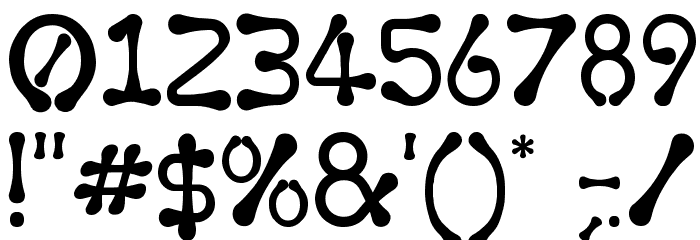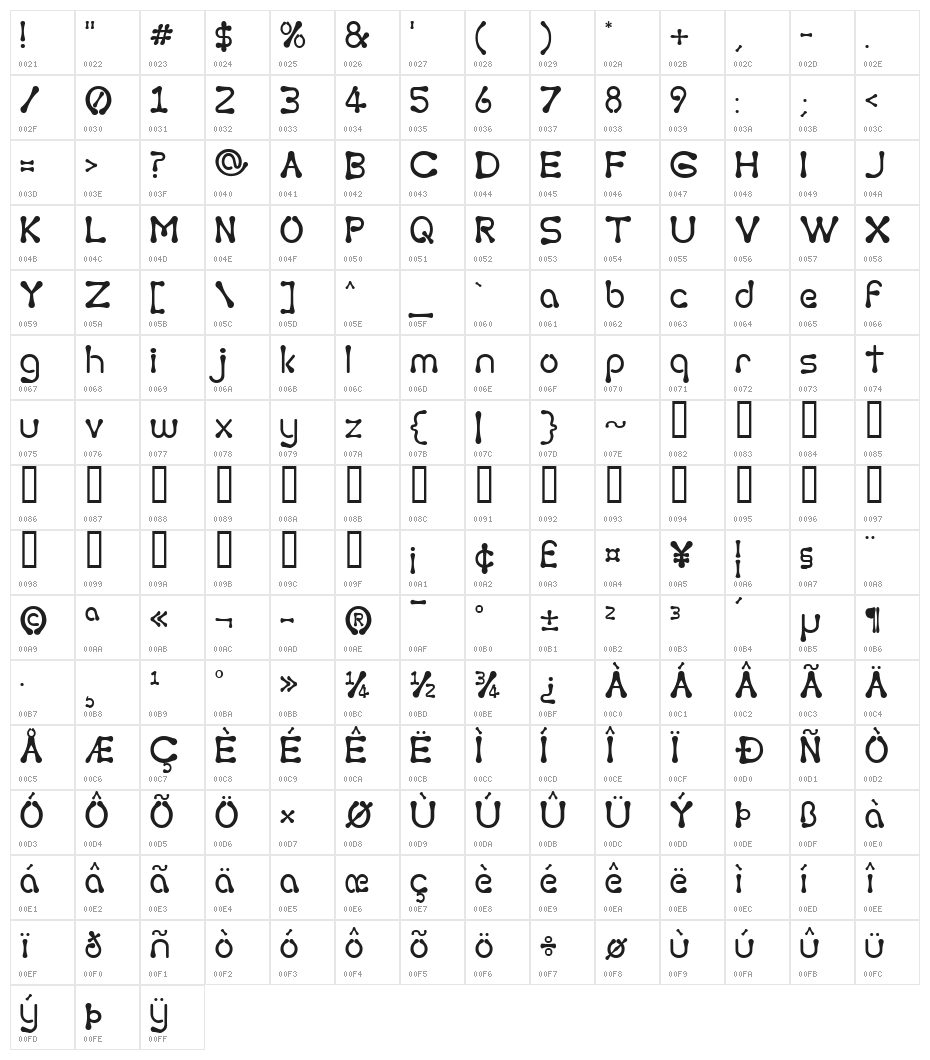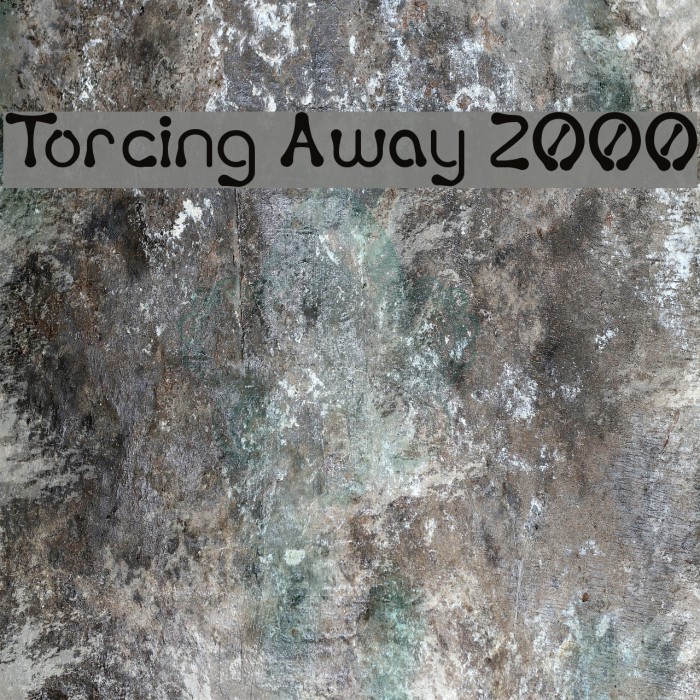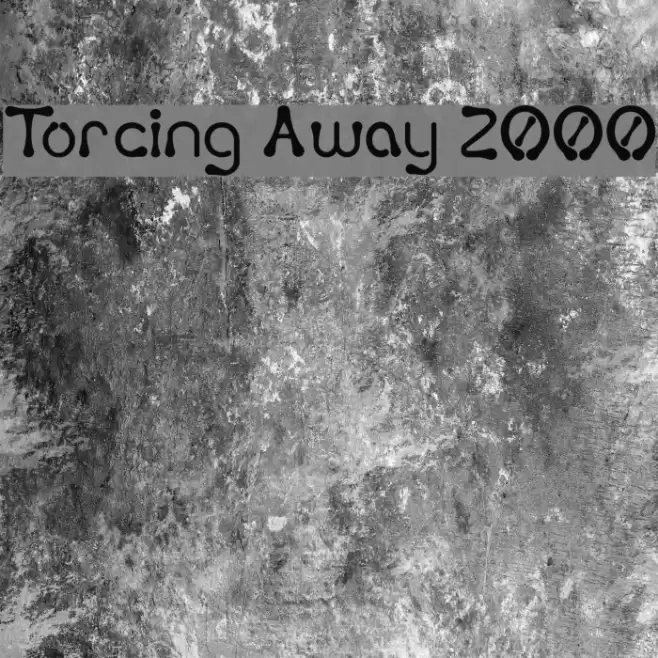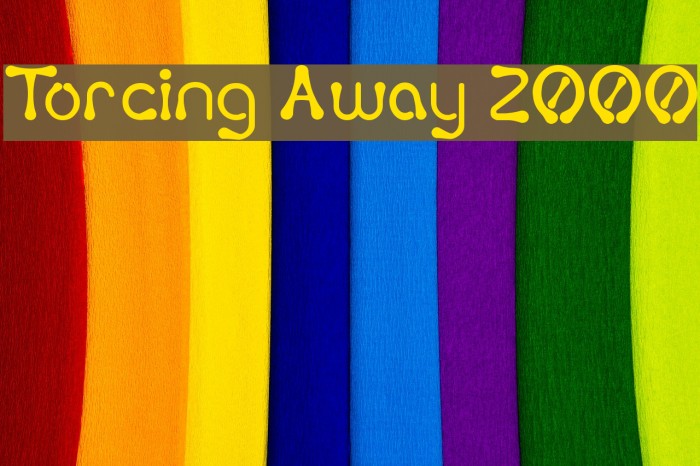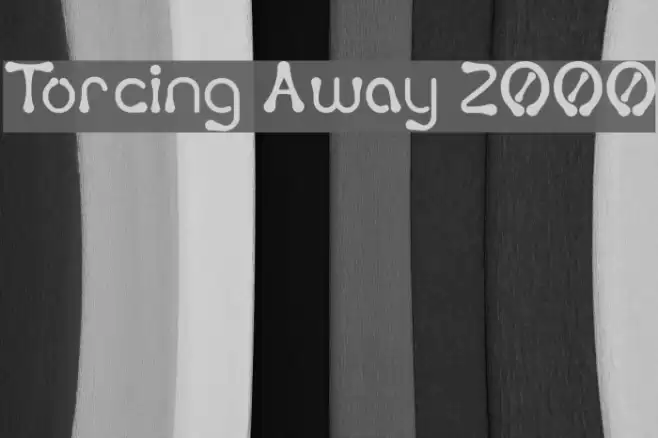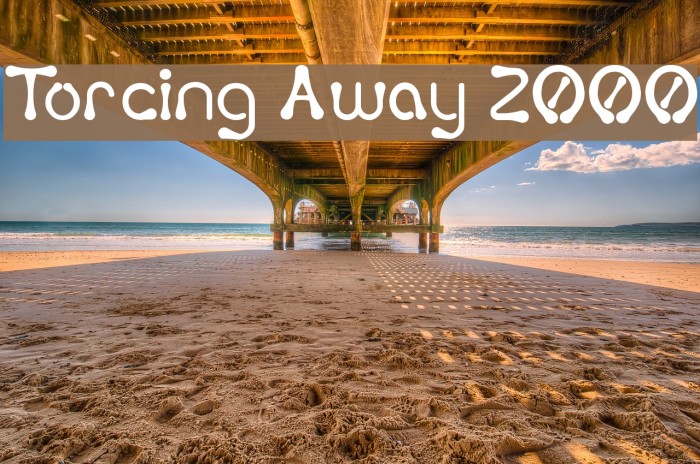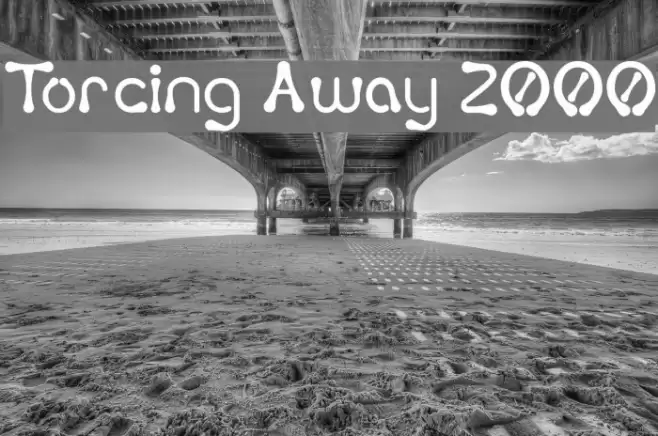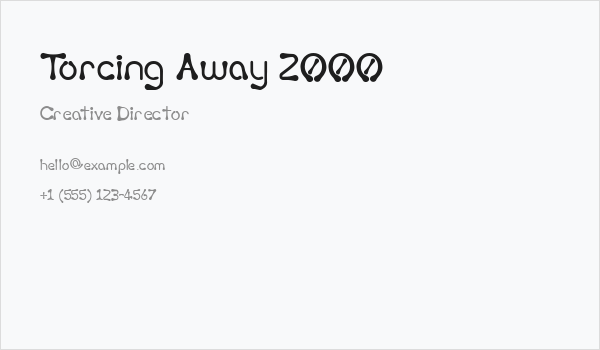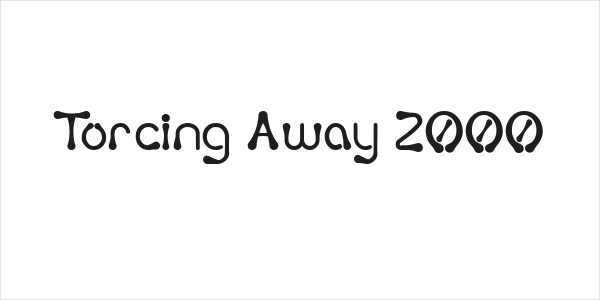
Torcing Away 2000 Font
Torcing Away 2000 Description
This font features a playful and organic design, characterized by its rounded and irregular shapes. The letters have a hand-drawn appearance, with varying stroke thickness that adds a dynamic and whimsical feel. The overall look is casual and approachable, making it suitable for creative and informal projects. The numerals and special characters maintain the same quirky style, ensuring consistency across all elements. This font's unique personality makes it stand out, offering a fresh and lively aesthetic.
| Proposed Projects | Ideal for children's books, creative posters, playful branding, and casual invitations. |